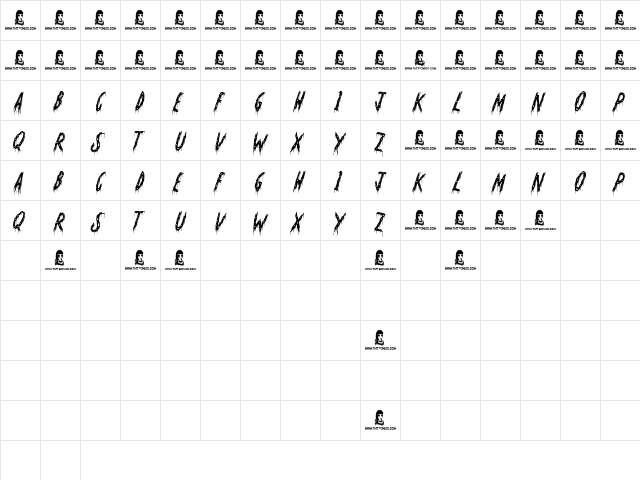
Oh No Not Again Regular
Design Context for Oh No Not Again Typeface
Oh No Not Again is a composed and adaptable typeface that performs quietly and consistently across a wide range of design contexts.